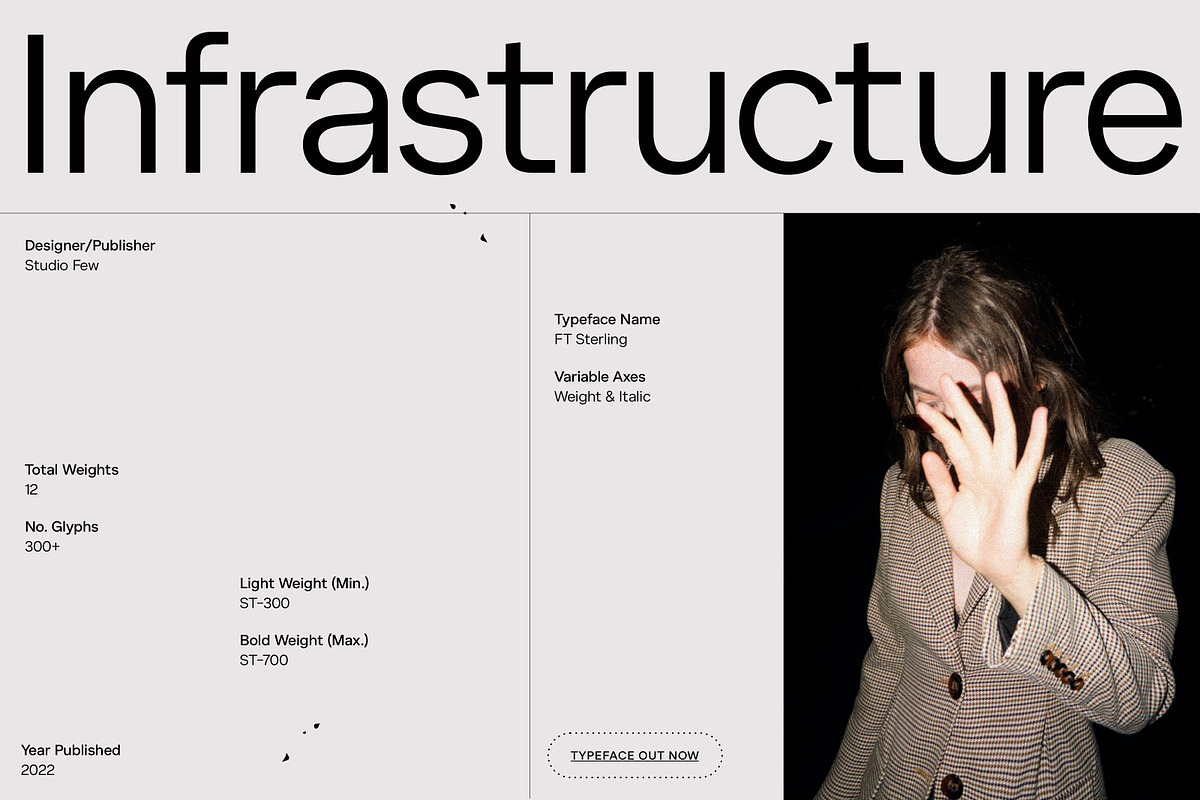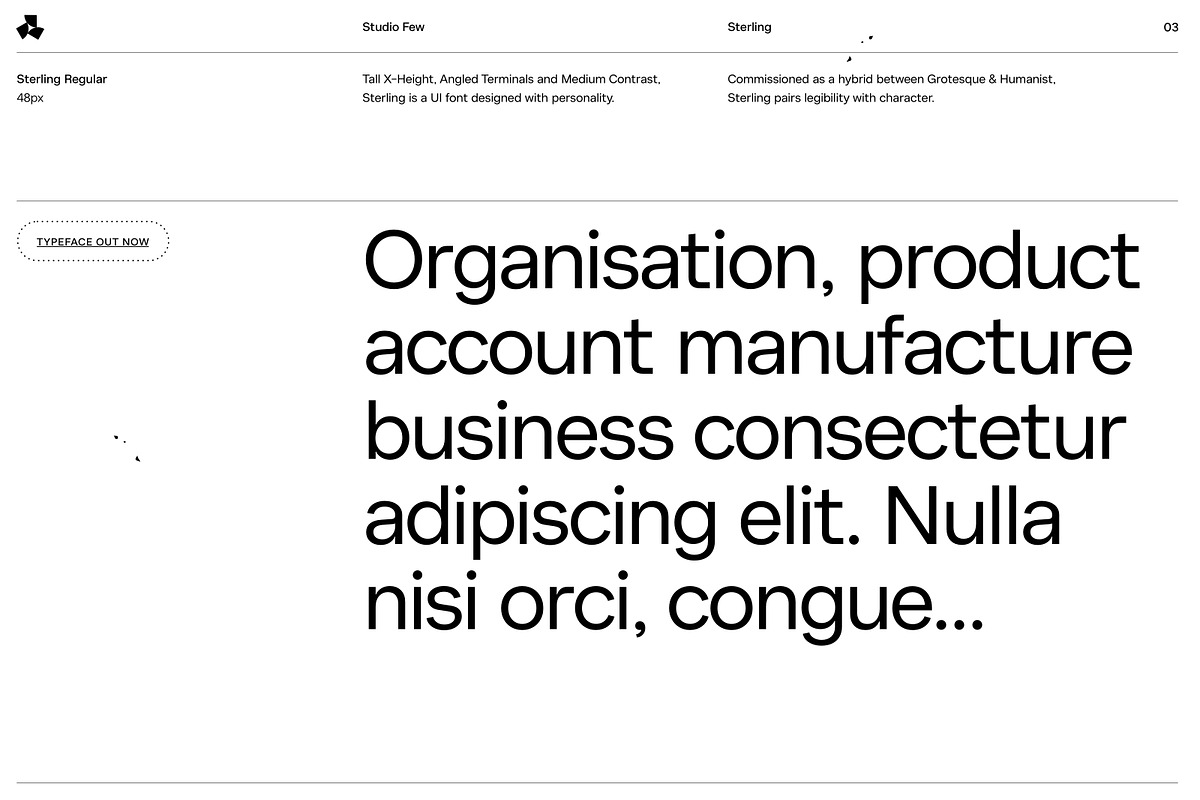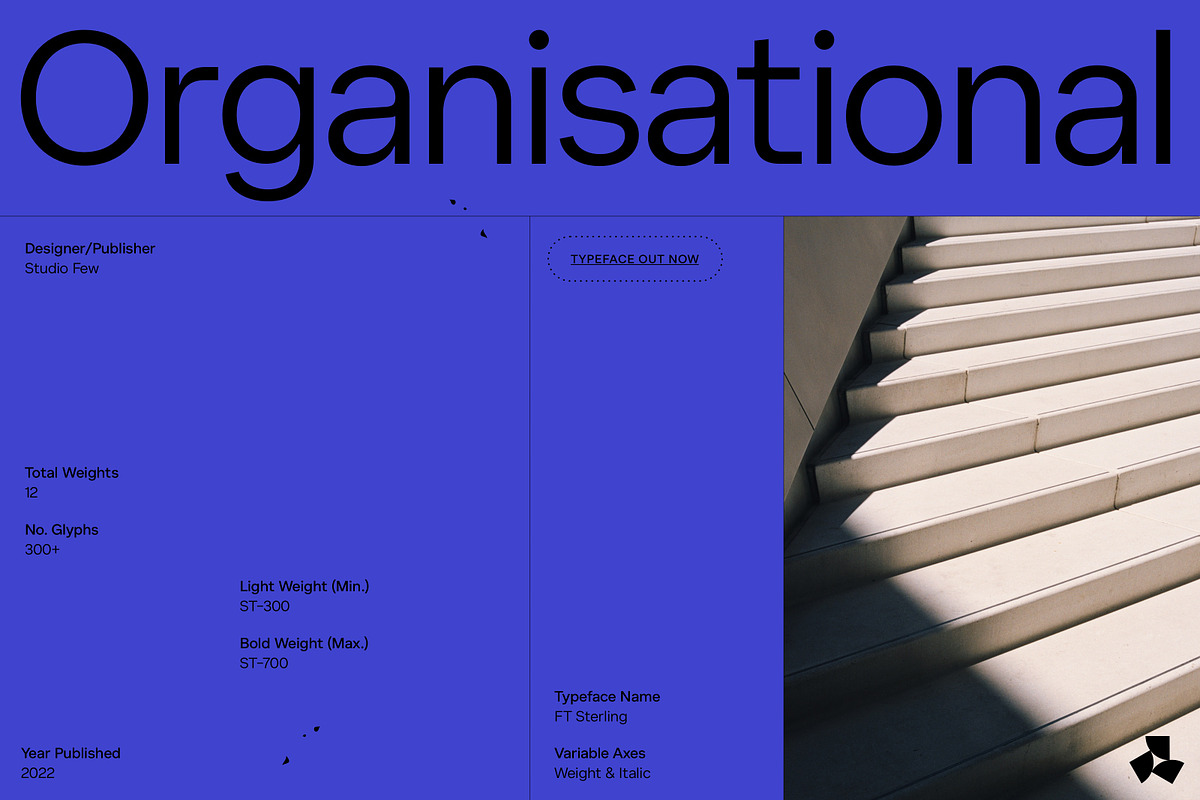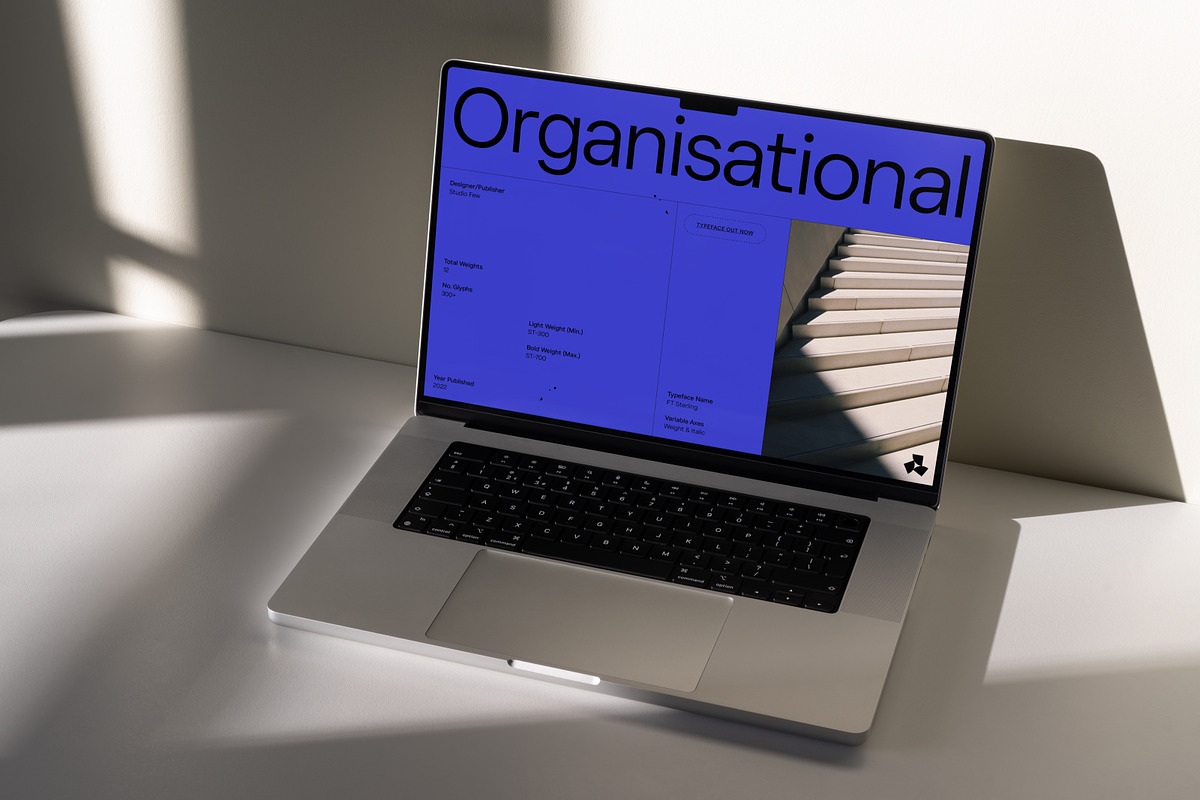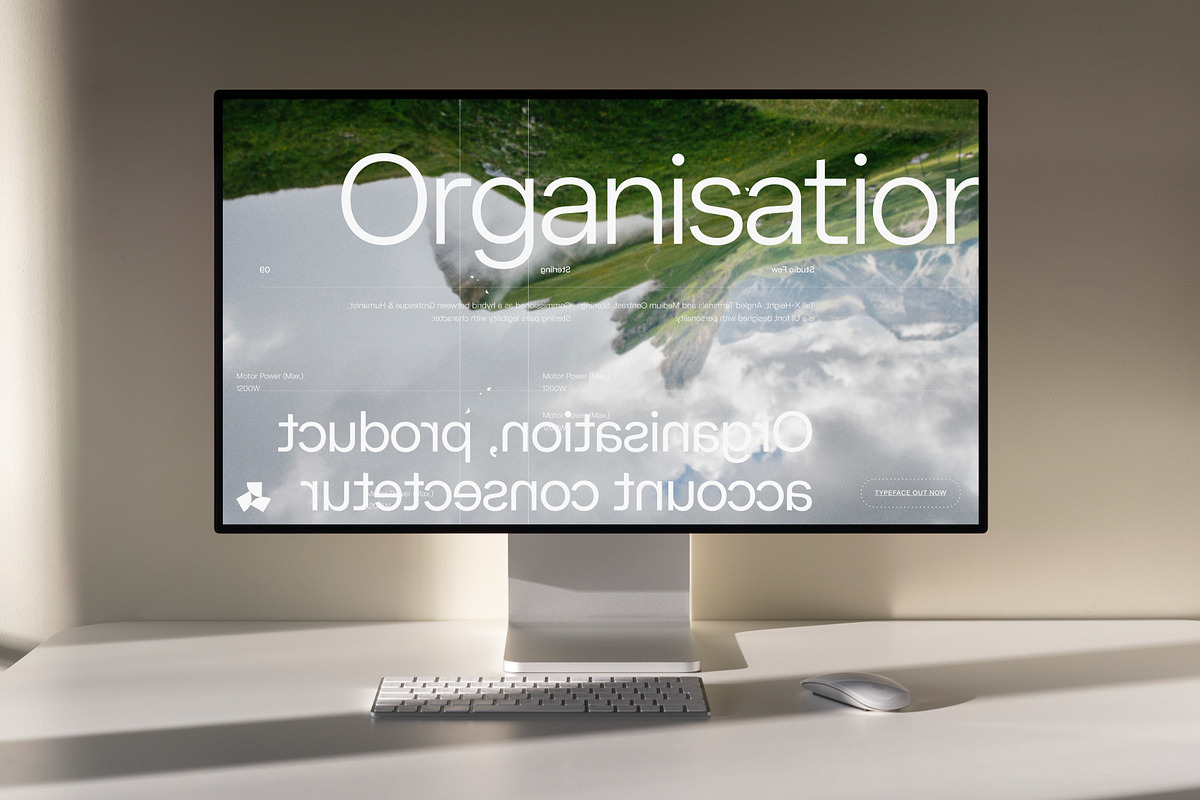
Sterling - Full Family
Tall X-Height, Angled Terminals and Medium Contrast, Sterling is a UI font designed with personality. Concieved as a hybrid between Grotesk & Humanist, Sterling pairs legibility with character.